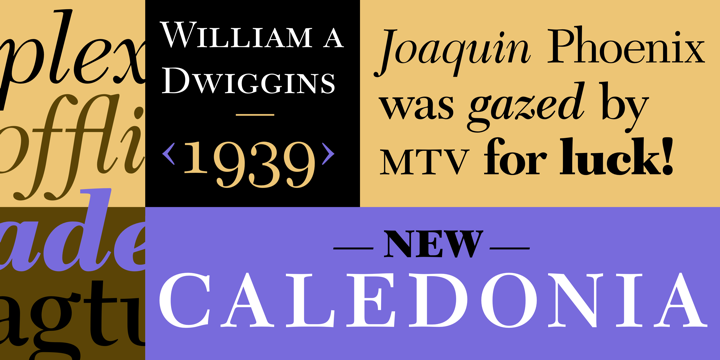
New Caledonia Font Family
About this font family
William A. Dwiggins designed Caledonia for Linotype in 1939. Initially, he had intended to blend the elements of Scotch Roman and Bulmer typefaces, but ended up with a design that bettered both his models. Dwiggins describes it as having “something of that simple, hard-working, feet-on-the-ground quality that has kept Scotch Roman in service for so many years.”
The Bulmer types gave Caledonia “the liveliness of action the quality is in the curves, the way they get away from the straight stems with a calligraphic flick, and in the nervous angle on the underside of the arches as they descend to the right.”